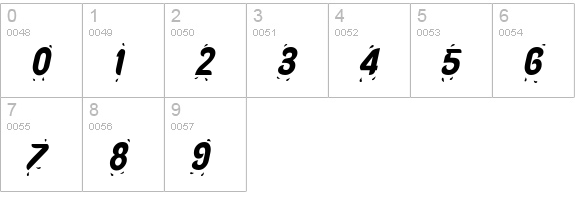
Shower Italic Font Details
Shower Italic is a distinctive, italic variant in the Shower typeface family \xE2\x80\x94 well suited to design and typography projects.
Shower Italic font is a stunning and elegant typeface that will add a touch of sophistication to any design project. Its sleek and graceful letterforms effortlessly capture attention and convey a sense of refined beauty. With its delicately slanted italics, Shower Italic font exudes a sense of style and elegance, making it the perfect choice for invitations, wedding stationery, branding materials, and more. Whether used in print or digital media, this font will bring a touch of class to any project. One of the best features of Shower Italic font is that it is completely free to download. That's right, you can enjoy the beauty and versatility of this font without spending a dime. Simply head over to FontsMarket.com, and you'll find Shower Italic font readily available for download. So why wait? Enhance your designs with the grace and sophistication of Shower Italic font. With its free availability at FontsMarket.com, there's no reason not to give your projects a touch of elegance that will leave a lasting impression. Download Shower Italic font today and let your creativity soar.